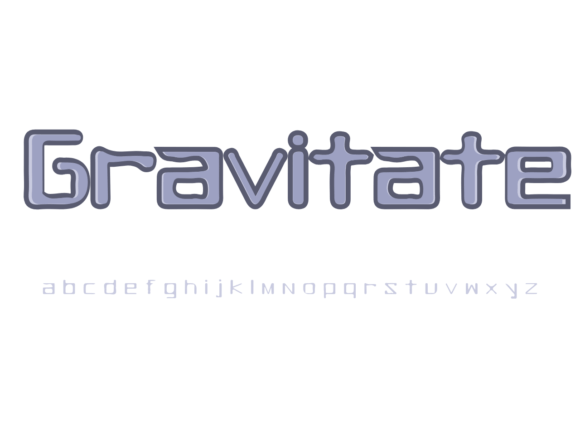
Introducing Gravitate Font, the playful and inviting display font that will effortlessly elevate your designs! Its charmingly childish aesthetic exudes warmth and approachability, making it the perfect choice for creating a lasting impact on your audience.
Unleash your creativity with Gravitate Font, a versatile font family that empowers you to express yourself in countless ways. From eye-catching posters to heartwarming greeting cards, this font seamlessly adapts to your needs, adding a touch of whimsy to any project.
Embrace the power of Gravitate Font and witness its transformative effect. Its easy-to-read nature ensures that your message shines through with clarity, while its friendly demeanor fosters a sense of connection with your readers.
Picture this: you're crafting an invitation for a special celebration. Gravitate Font's playful spirit perfectly captures the joy of the occasion, making your guests eager to attend. Or envision a vibrant poster for a local art show, where Gravitate Font's bold presence draws attention and sparks curiosity.
So, why settle for ordinary when you can make a statement with Gravitate Font? Its boundless potential and captivating charm will ignite your imagination and help you create designs that resonate with your audience on a deeper level. Let Gravitate Font be your constant companion, adding a touch of magic to every project you undertake.